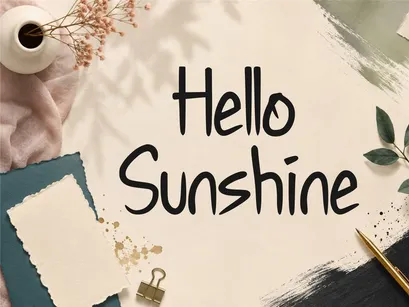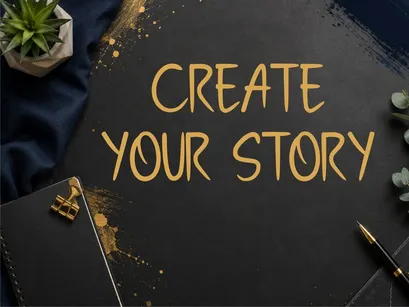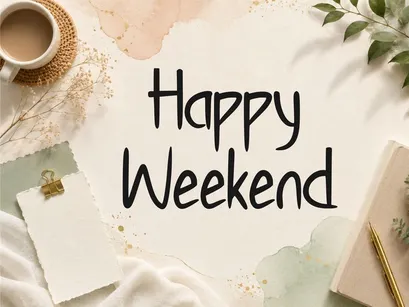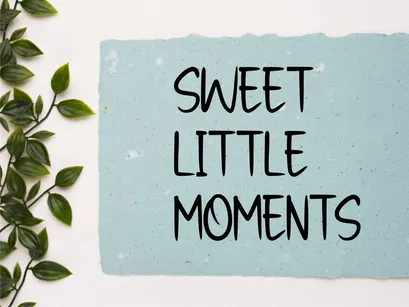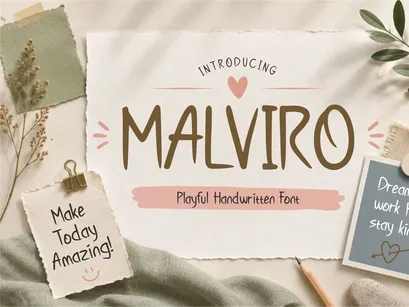
Malviro – Playful Handwritten Font
Malviro is a playful handwritten font designed to bring a warm, cheerful, and personal touch to your creative projects. With its casual hand-drawn appearance, organic letterforms, and friendly character, Malviro feels natural, expressive, and full of personality.
Perfect for projects that need a fun and approachable aesthetic, Malviro works beautifully for branding, logos, greeting cards, invitations, posters, social media designs, packaging, children's products, stationery, quotes, and lifestyle projects.
Its distinctive handwritten style makes every word feel personal while remaining clear and easy to use across a variety of design applications. Whether you're creating a cute brand identity, an inspiring quote, a playful poster, or charming packaging, Malviro adds an authentic handmade feel to your work.
Malviro – Playful Handwritten Font is a great choice for designers looking for a friendly, creative, and versatile handwritten typeface that stands out without feeling overly formal.